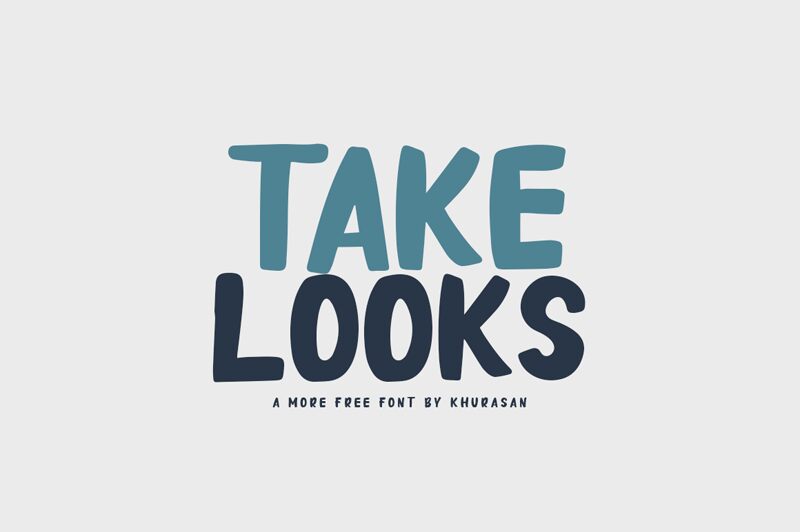
Take Looks
Looking to add a playful, cartoonish vibe to your next design project? Look no further than Take Looks, the bold display font from Khurasan. With its thick, curvy lines and exaggerated features, Take Looks is perfect for injecting some fun into everything from children's book covers to event posters. Whether you're designing for print or web, this versatile typeface will help your message stand out with its bold and expressive style. So why settle for boring when you can take your design game to the next level with Take Looks? Try it today!